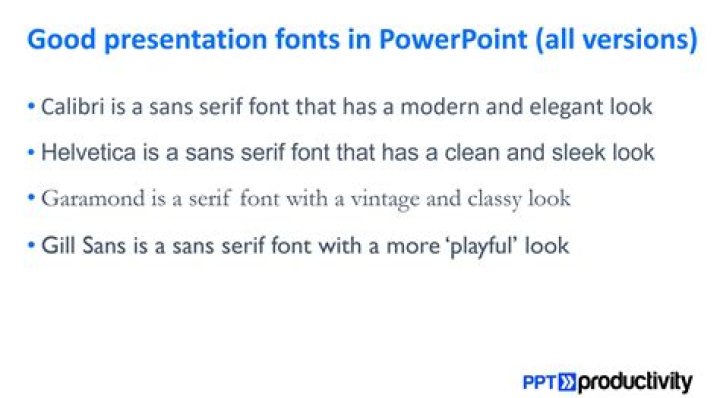
Considering this, what is the best font for PowerPoint?
10 best presentation fonts
- Tahoma. Designed by Matthew Carter, Tahoma is one of Microsoft's most popular sans serif typefaces.
- Verdana. Another of Matthew Carter's designs, Verdana is a prime example of a font created specifically for the screen.
- Impact. Impact gets about a bit.
- Georgia.
- Palatino.
- Proxima Nova.
- ITC Souvenir.
- Montserrat.
Furthermore, how do I choose a font for my presentation? Stick to a maximum of 3 fonts throughout your presentation – preferably 2. For example, one sans serif font for all your headers, and a serif font for the rest. Different fonts appeal to different people, so keep your audience in mind when scrolling down the font list.
Also know, what is the best font and size for PowerPoint?
Use a big enough font
I usually find that any font size less than 24 point is too small to be reasonably read in most presentation situations. I would prefer to see most text at a 28 or 32 point size, with titles being 36 to 44 point size.
What fonts does PowerPoint have?
Official list of approved PowerPoint system fonts for PC and Mac with Previews – Updated
| Font Name | Platform | Recommendation |
|---|---|---|
| Tahoma | Cross Platform | Yes |
| The Hand | Cross Platform | NEW and HOT, Thematic Only! |
| The Serif Hand | Cross Platform | NEW and HOT, Thematic Only! |
| Times New Roman | Cross Platform | Yes |
What is the most attractive font?
With a rich selection of styles for each of these fonts, there are many ways to incorporate them into our web designs.- Alternate Gothic.
- Open Sans.
- Alegreya.
- Titillium Sans and Dosis.
- Merriweather.
- Yellowtail.
- Playfair Display.
- Arvo. Arvo is a very good slab serif font family, created by Anton Koovit.
What is the most pleasing font?
HelveticaWhat is the 10 20 30 rule in PowerPoint?
It's quite simple: a PowerPoint presentation should have 10 slides, last no more than 20 minutes, and contain no font smaller than 30 points.What are examples of font effects in PowerPoint?
Keep text to a minimum (6-8 lines per slide, no more than 30 words per slide). The bullet points should be headlines, not news articles. Write in sentence fragments using key words, and keep your font size 24 or bigger.What is the best image size for PowerPoint?
Design Decoded: The Top 12 Easy to Read Fonts- Helvetica. Along with Georgia, Helvetica is considered to be one of the most easily read fonts according to The Next Web.
- PT Sans & PT Serif. Can't decide whether serif or sans-serif is for you?
- Open Sans.
- Quicksand.
- Verdana.
- Rooney.
- Karla.
- Roboto.